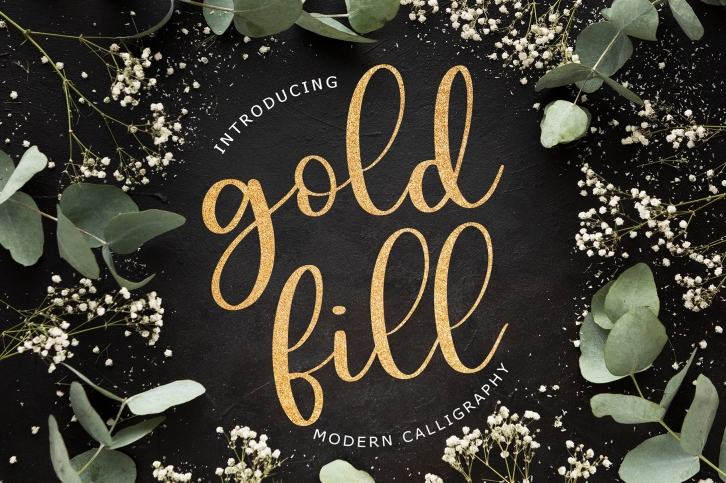
Goldfill Modern Calligraphy is a beautiful font that was designed by Formatika Studio. It's a great choice for designers and creatives who need such a font. It was released on August 8, 2020 and the file size is 3.1 MB. Goldfill Modern Calligraphy may give a more youthful, expressive and casual look to your project. It is a very beautiful, refined, elegant, and high-quality font.